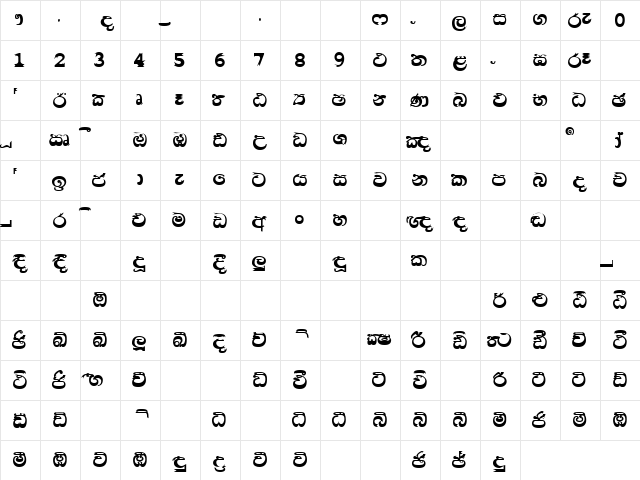
DL-KIDURU Normal
Design Context for DL-KIDURU Typeface
DL-KIDURU offers clean, dependable letterforms without strong stylistic allegiance, making it a practical choice for designers who need flexibility.